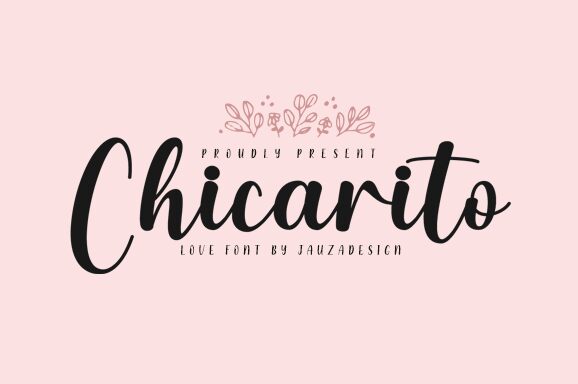
Chicarito, created by font designer Danar Nugroho, is a stunning handwritten font with a touch of romance. Its thin lettered style adds an elegant and delicate feel to any project. With its PUA encoding, you can effortlessly access the wide range of beautiful glyphs and ligatures that Chicarito offers.
This versatile script font is perfect for wedding invitations, love letters, branding projects, and anything that needs a touch of sophistication and charm.
Let Chicarito bring your designs to life with its graceful and alluring aesthetic.
Chicarito